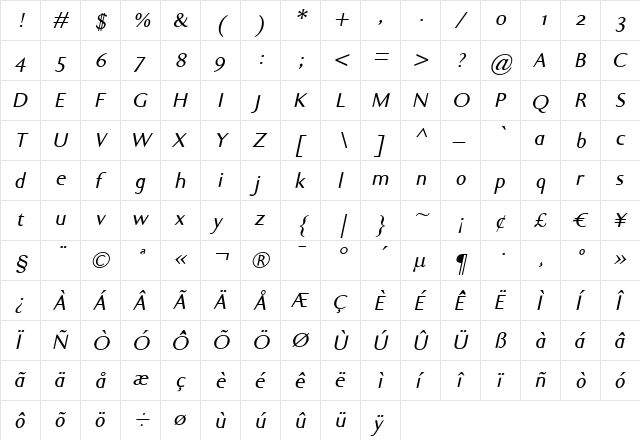
Ela Sans Plain Italic
Italic · Gert Wiescher, Wiescher-Design, Munich, Germany, www.wiescher-design.de  ·
Design Context for Ela Sans Plain Typeface
Ela Sans Plain takes a measured approach to typography — its balanced proportions and neutral character make it a reliable workhorse for both digital and print work. Its italic angle brings a sense of urgency and motion to the letterforms.